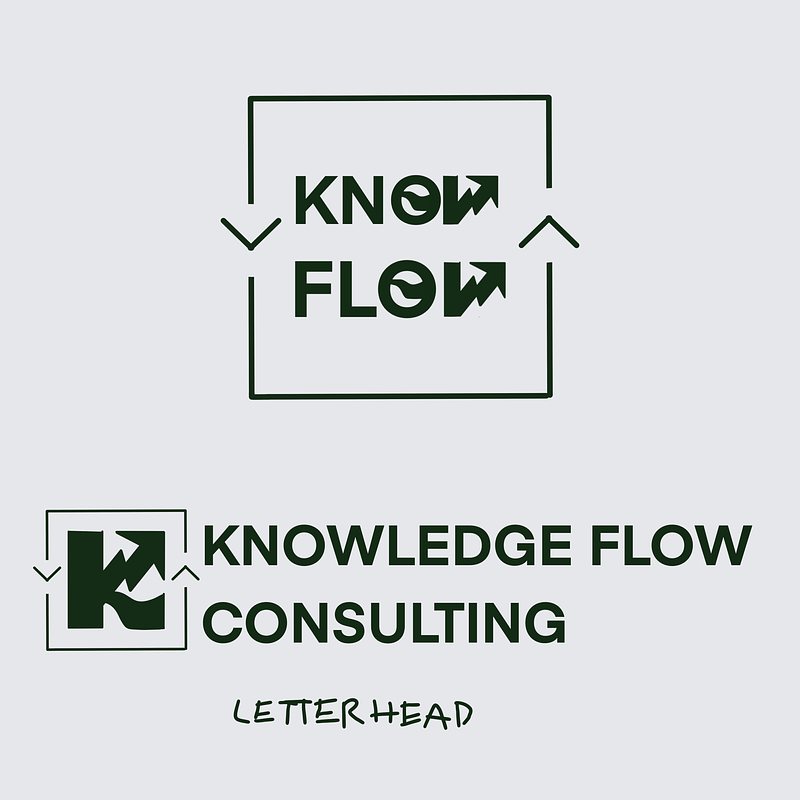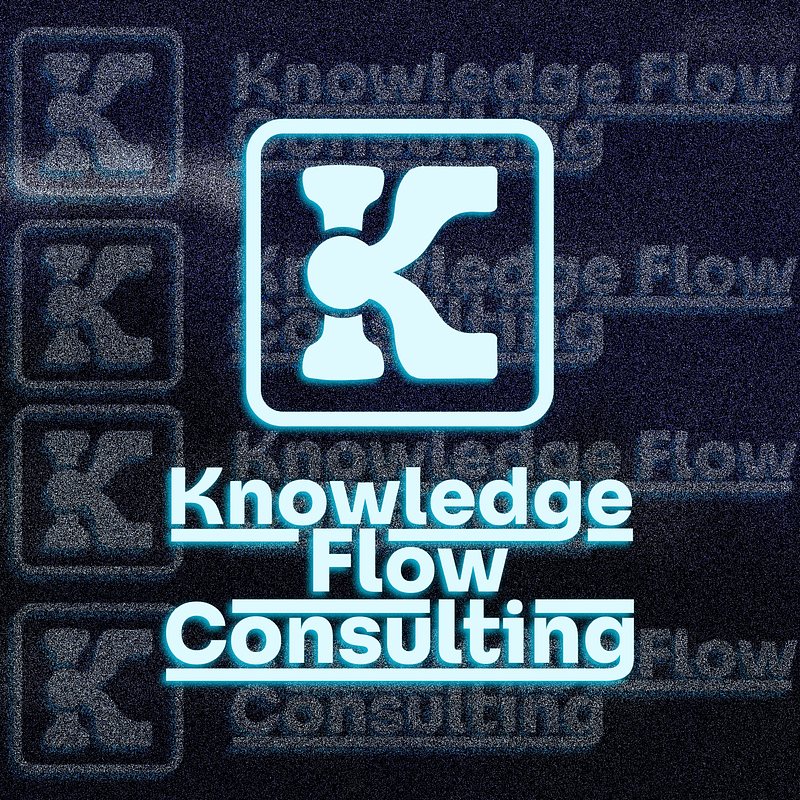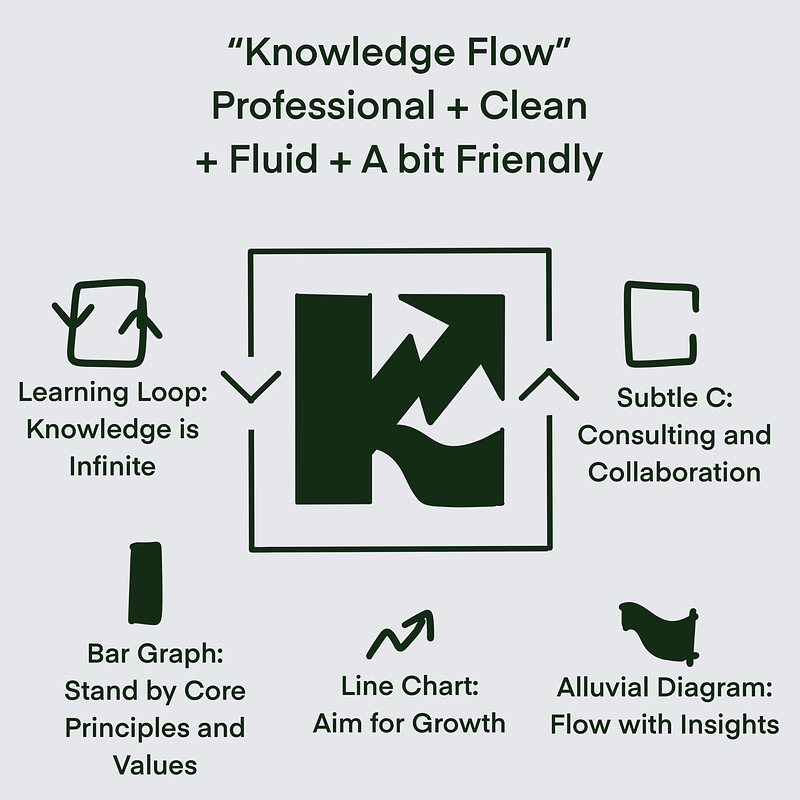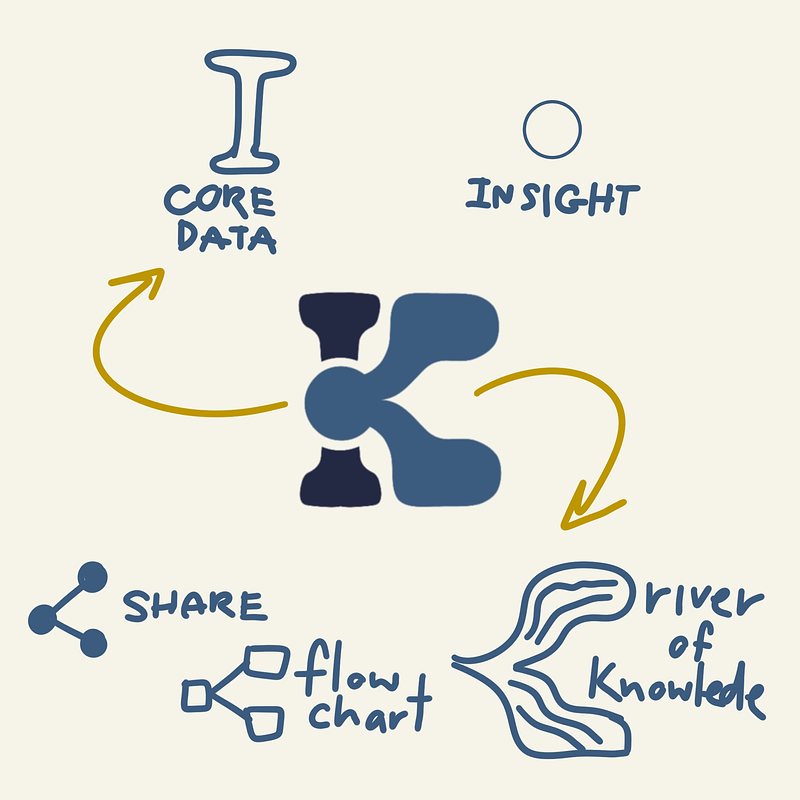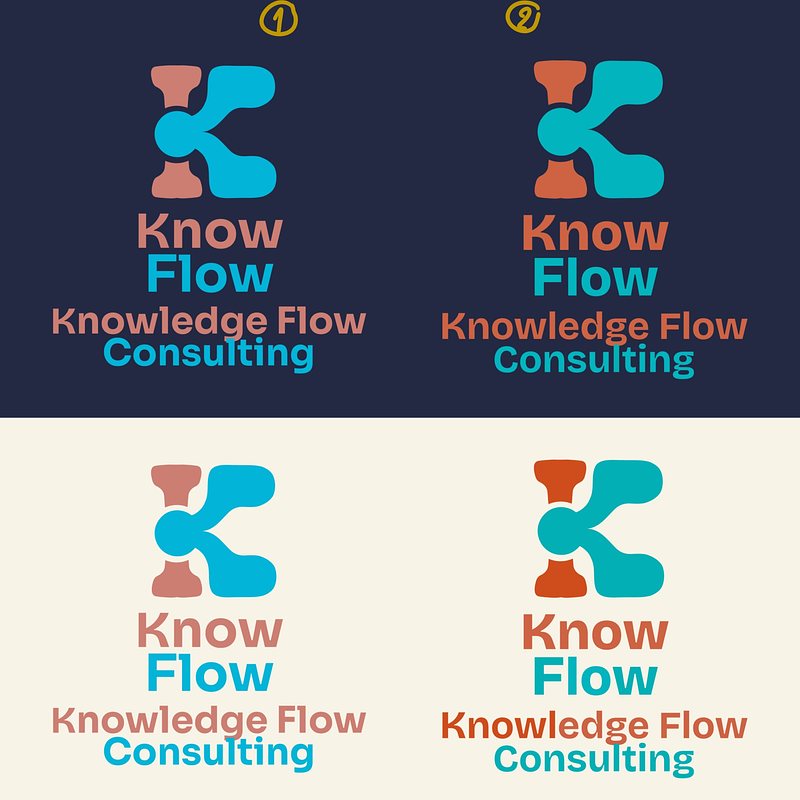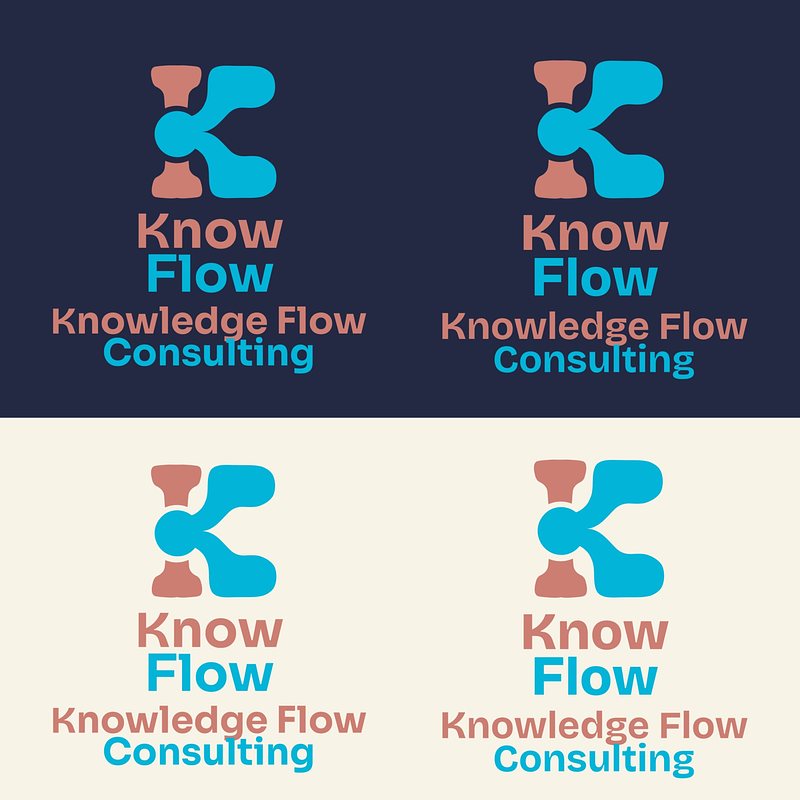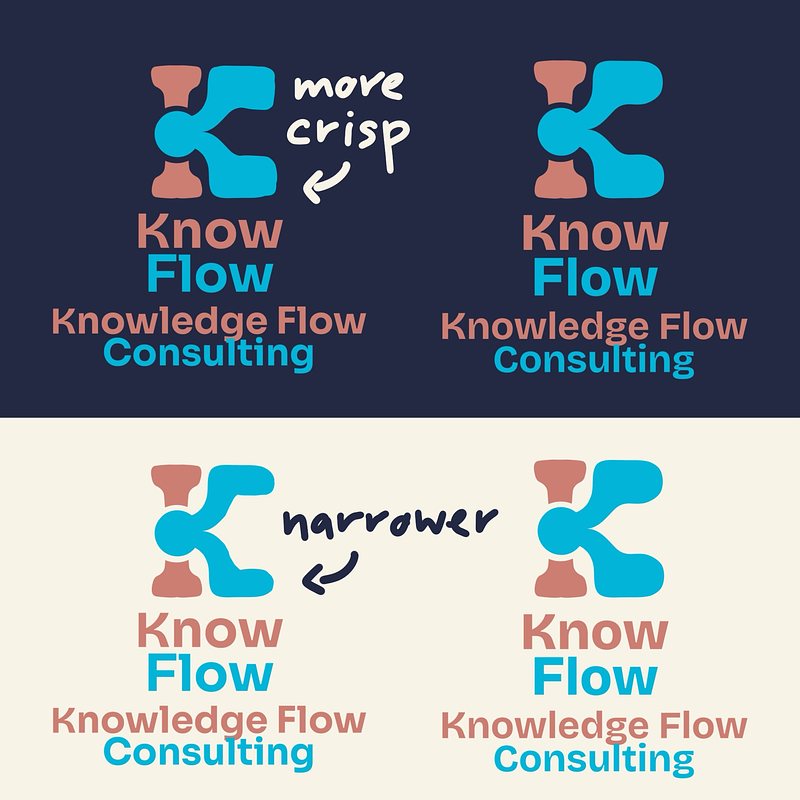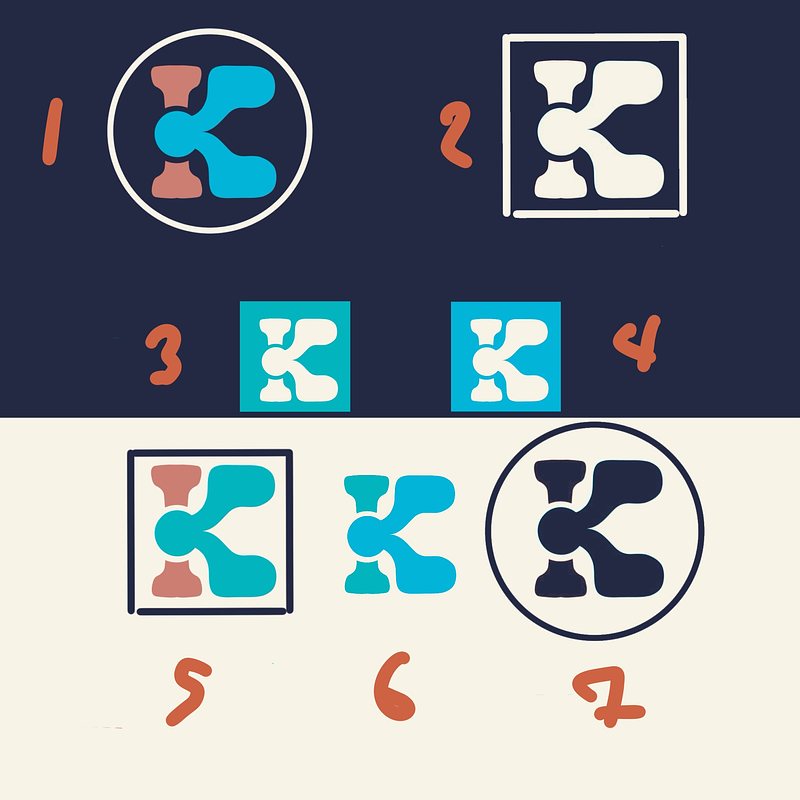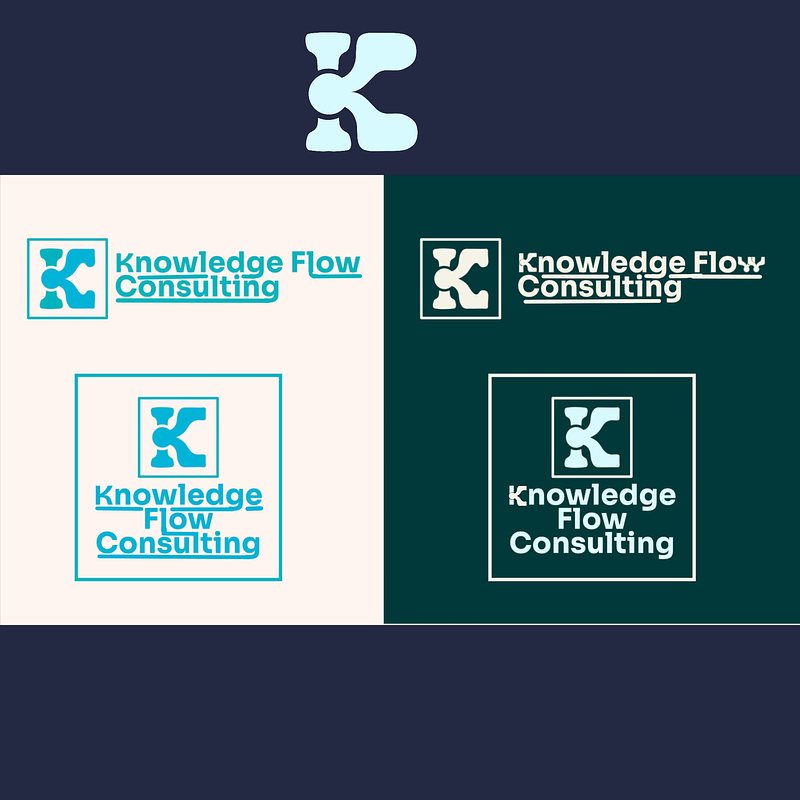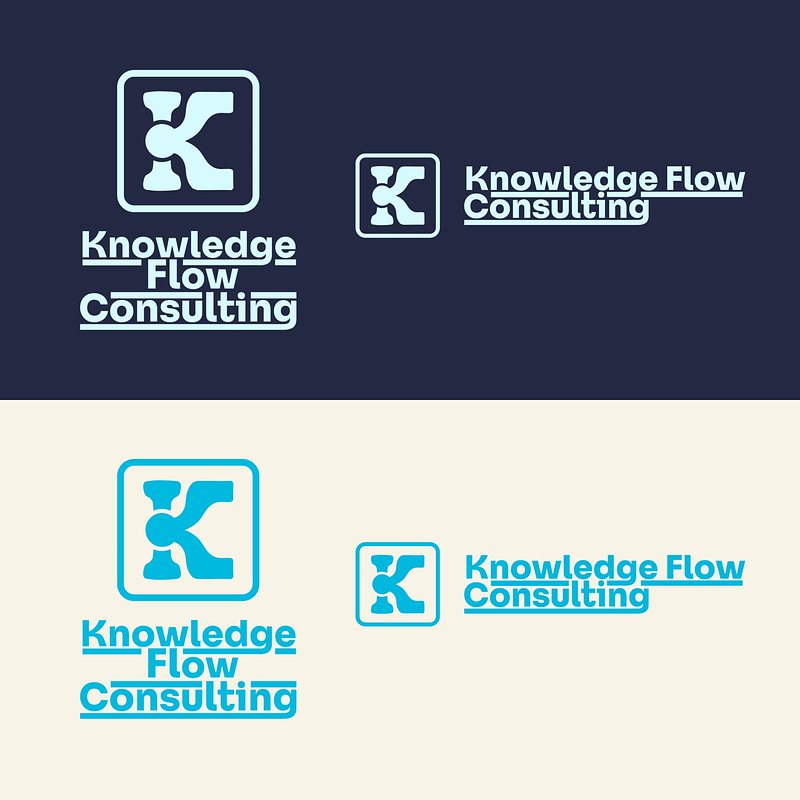
Pratik
reached out to discuss creating a logo for his new business, Knowledge Flow Consulting,
which focuses on research consulting services for educational
sectors and non-profits.
This project presents a series of intriguing challenges for me. Given
that it's a research consulting business and operates on a
Business-to-Business (B2B) model, I needed to set aside
my playful approach to lettering, tapping instead into my
branding and typography skills. (In case you were
wondering, I hold degrees in Marketing, Branding, and Communication
Arts.)
Additionally, the name "Knowledge Flow Consulting" is quite long, so
just doing a cool wordmark isn’t gonna cut it.
The logo needed
to include an icon that could be easily recognized at a glance and
memorable enough for people to recall later.
Luckily, I've been learning and practicing icon mark designs since
August, so this project presented an excellent opportunity for hands-on
experience.
The Brief: Designing Under Constraints
The brief I received from Pratik can be summarized as follows: - Trustworthy, reliable, yet friendly. - A clean
look with a sense of fluidity. - Targeting
small to medium businesses, particularly in the
education and nonprofit sectors. - Emphasis on the flow of
information and collaboration.
After reading all the information on Pratik's website and noting down
key points alongside the brief, I began sketching out design ideas to
get my creative juices flowing.
The Initial Concept That Failed
I must admit that I grew fond of my initial concept; however, in
hindsight, I completely understand why he rejected it.
I went too heavy on the research vibe and missed the
collaboration angle, which is one of the main values Pratik has
mentions. Also, it ended up looking too rigid and
corporate, not fitting for the educational crowd, despite my
plan to round the corners. Plus, it didn’t capture the concept
of growth Pratik envisioned as the perpetual cycle of change.
This is what happens when you try to be clever and become too attached
to your own concept without fully embracing the brand identity
and its target audience. This should not happen to someone who
has specifically studied this subject.
I humbly accepted my mistake.
Lesson learned: Follow the brief, understand the audience, and
keep your ego in check.
The Knowledge Must Flow: Conceptualizing the Flow of Knowledge
Back to the drawing board for the Knowledge Flow logo. My focus
will be on capturing the brand essence more accurately and ensuring that
the knowledge must flow, as intended in the brand's mission. I focused
solely on symbolizing the flow of knowledge in the simplest way
possible.
I came up with the concept of a river of knowledge and insight,
flowing seamlessly from one point to the other, and explored
different ways to incorporate it into an icon.
I found some ideas that I liked, but they didn't fit well with the
overall brand identity. So, I chose a design that looks clean,
elegant, and appropriate for both the brand and the audience.
It's simple but, in my opinion, the most effective.
Pratik seemed to like it too, but he had one criticism: it
looked too bulbous and round, like Mickey Mouse's hands.
Perhaps I was too close to the design to see it myself. Nevertheless, I
was willing to adjust by sharpening the corners and reducing the size
slightly to avoid any hand associations. To be honest, I also thought it
would be cool to visualize "helping hands" in the icon—but alas!
Typography Is Half the Battle: Choosing Typography
Typography, as we all know, is half the battle in creating a
compelling logo. Choosing the right font is crucial. I went through my
entire catalog, picked out the ones I liked, and thought would fit the
brand identity. I then weeded out those that appeared too generic or did
not align with my vision to create a shortlist.
Next, I analyzed both capital letters and lowercase
letters—especially K and O. The K needed to harmonize
with the icon while ensuring that O was as round as possible to convey
friendliness and evoke a sense of perpetual change cycle.
The left is Sora, The right is Bricolage Grotesque
I loved the K in Bricolage Grotesque; it resembled my logomark
nicely.
However, I preferred Sora for its friendly in a logical
way. So, I decided to pair the “K” from Bricolage
Grotesque with the rest of Sora's typeface. And voila! I had a base for
my logotype that would represent the brand identity. This
combination seemed to strike the right balance between individual letter
design and overall coherence.
Another reason for choosing Sora was its lowercase g. I immediately saw
an opportunity to incorporate underlines to symbolize the flow in the
logotype.
Just in case he found Sora too plain, I also pitched Bricolage
Grotesque. But I really hoped he'd go with Sora—and he did! Yay!
Note: Bricolage Grotesque would also have been a great choice if the
brand had aimed to emphasize unique insights instead of collaborative
efforts.
Setting the Mood with Colors
Colors were crucial in setting the brand's tone. The objective was
to make the brand appealing and fitting for its primary audience.
Since this primarily targets educational sectors and nonprofits,
the best approach is to ensure it appears as friendly as
possible. We don’t want people perceiving Knowledge Flow
Consulting as having a rigid corporate culture; rather, we want them to
see us as
trustworthy partners for meaningful
collaboration
I wanted the river analogy to be clear, so blue was a
must. Initially, I considered using yellow as a representation
of golden nuggets gleaned from insights within the stream of knowledge.
However, this wouldn't work well against light backgrounds. I needed
something versatile enough for both light and dark backgrounds to
enhance logo usability.
So, I went with pink and blue—classic choices for educational
and youth-focused brands. I picked the shades that work in both
dark and light backgrounds and make the flow the focal point.
Mock-ups Are Time-Consuming: The Bridge from Concept to Reality
Next up, mock-ups. Honestly, this process felt just as
time-consuming as designing itself. However, it's crucial because this
is how ideas become reality while revealing both strengths and
weaknesses in designs.
They also served as a safety net in case the initial designs
didn’t resonate with Pratik. By preparing multiple mock-ups, I
ensured that we had options to pivot to if needed. This step is
something I’ll definitely factor into my fee structure in the future,
given its significance in the design process.
Final Design: Bringing It All Together
After several rounds of feedback and adjustments, we eventually
landed on this design.
I used a round-cornered square to make the brand more
approachable and added underlines to reinforce the concept of
flow, a feature I was eager to incorporate from the moment I
discovered the Sora font.
We decided to focus solely on the river theme,
eliminating the peach pink, though I hope to revisit that version
someday. We also made alternate color version by created a white version
with a tint of blue, further enhancing the river of knowledge theme.
Now, I believe this truly represents Knowledge Flow Consulting's
brand identity: friendly yet professional; clean with fluidity—the kind
of partner educational sectors and nonprofits seek when they need
collaboration to uncover insights from thoughtfully gathered
research.